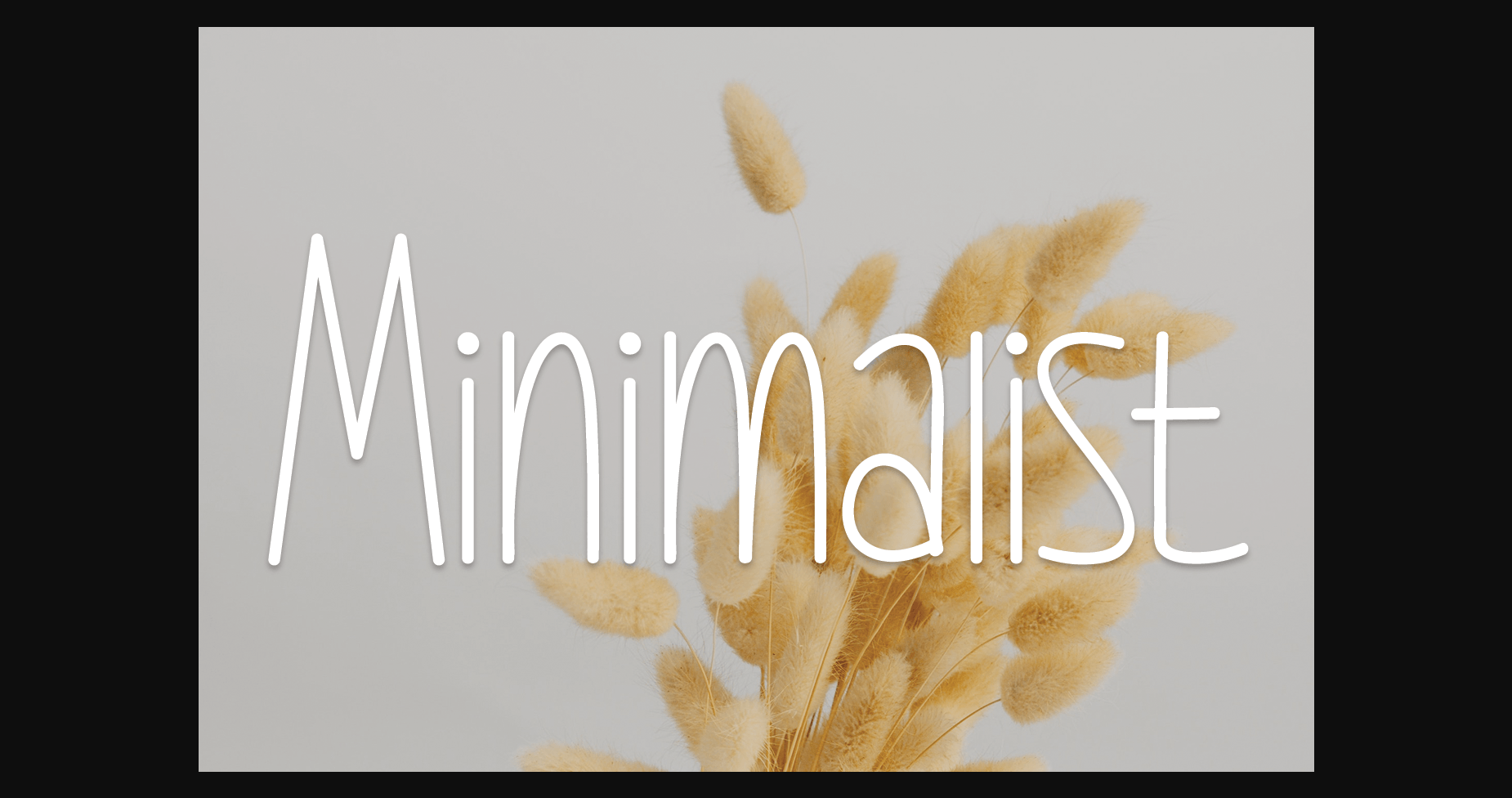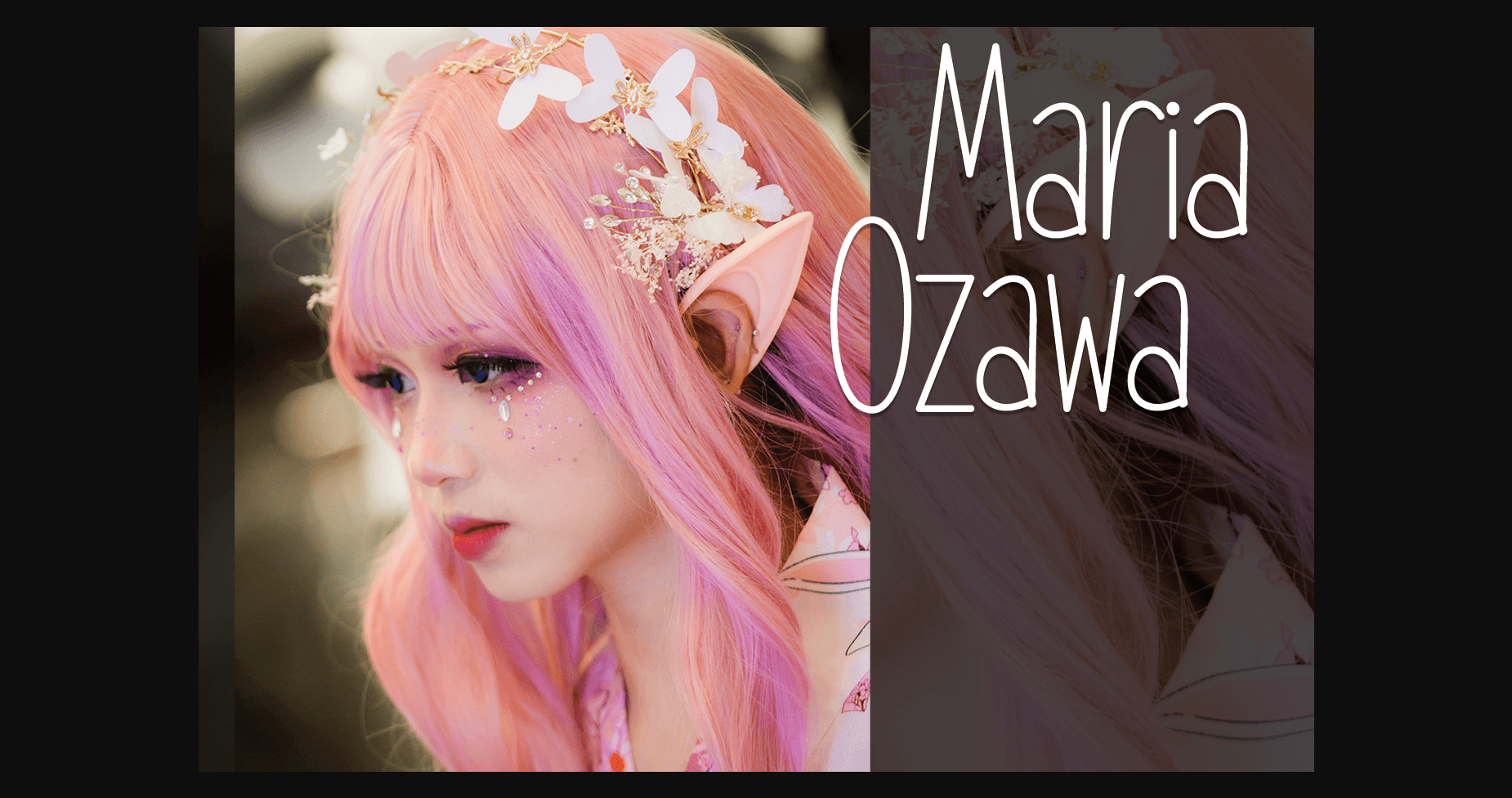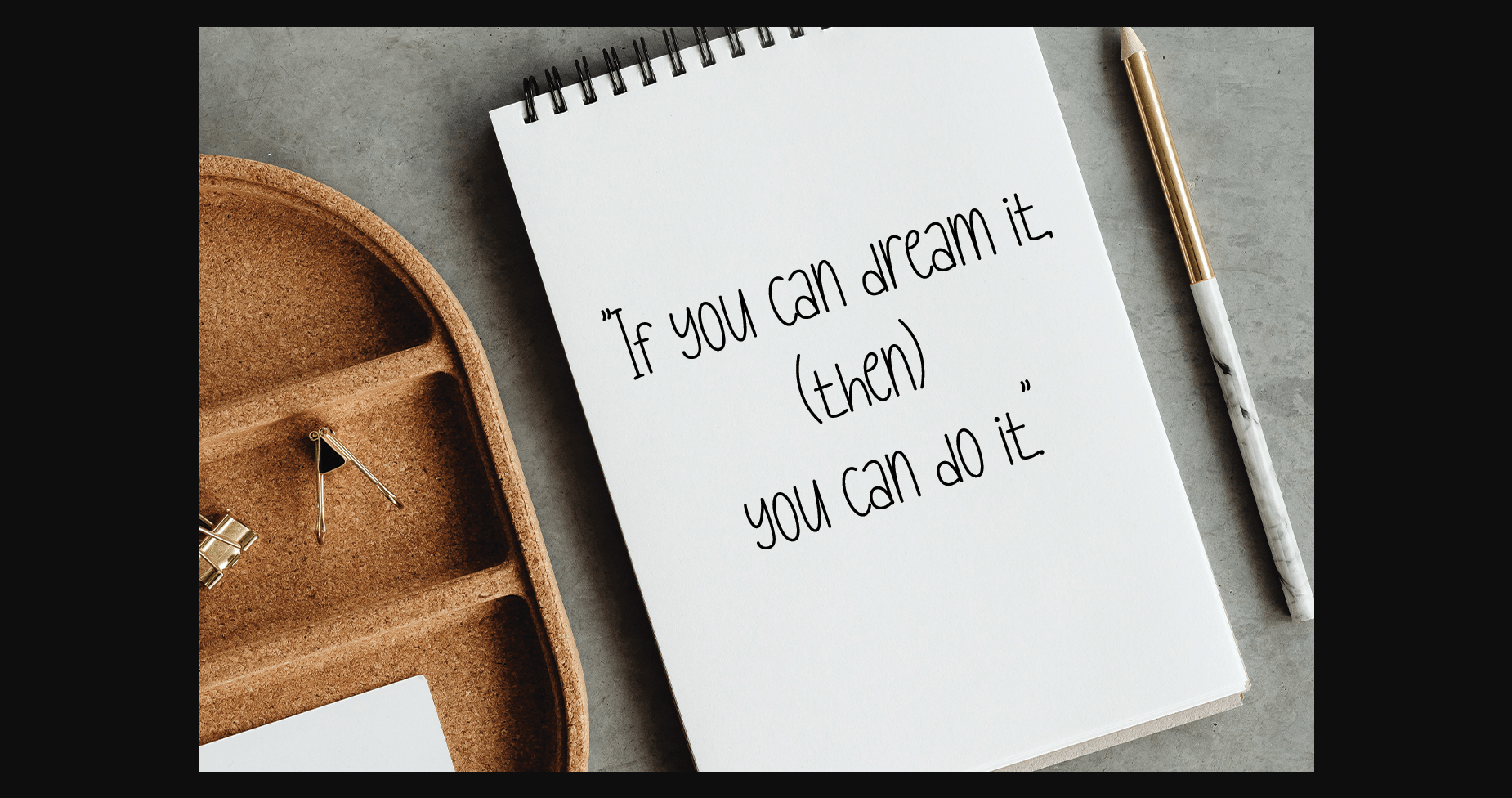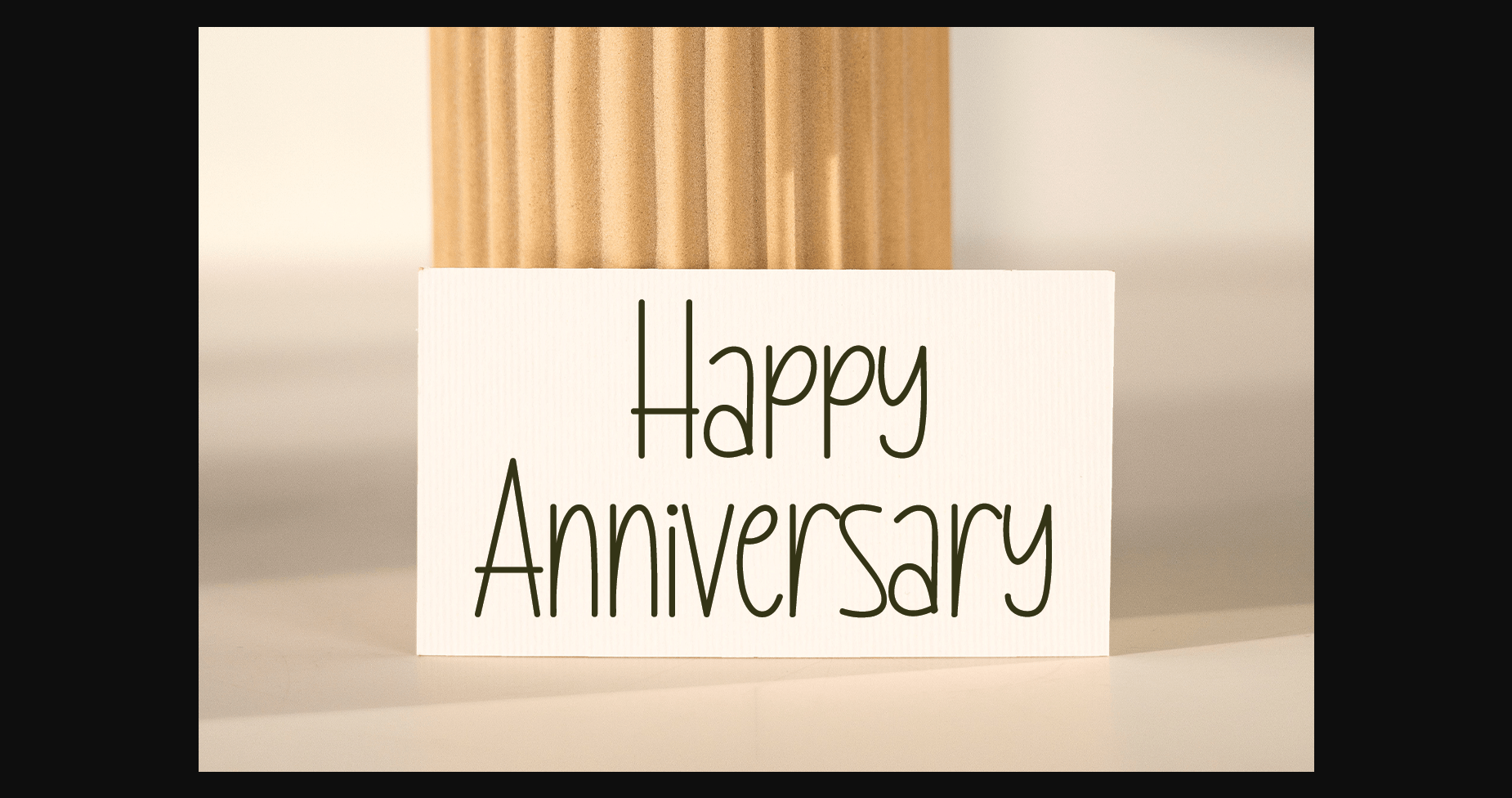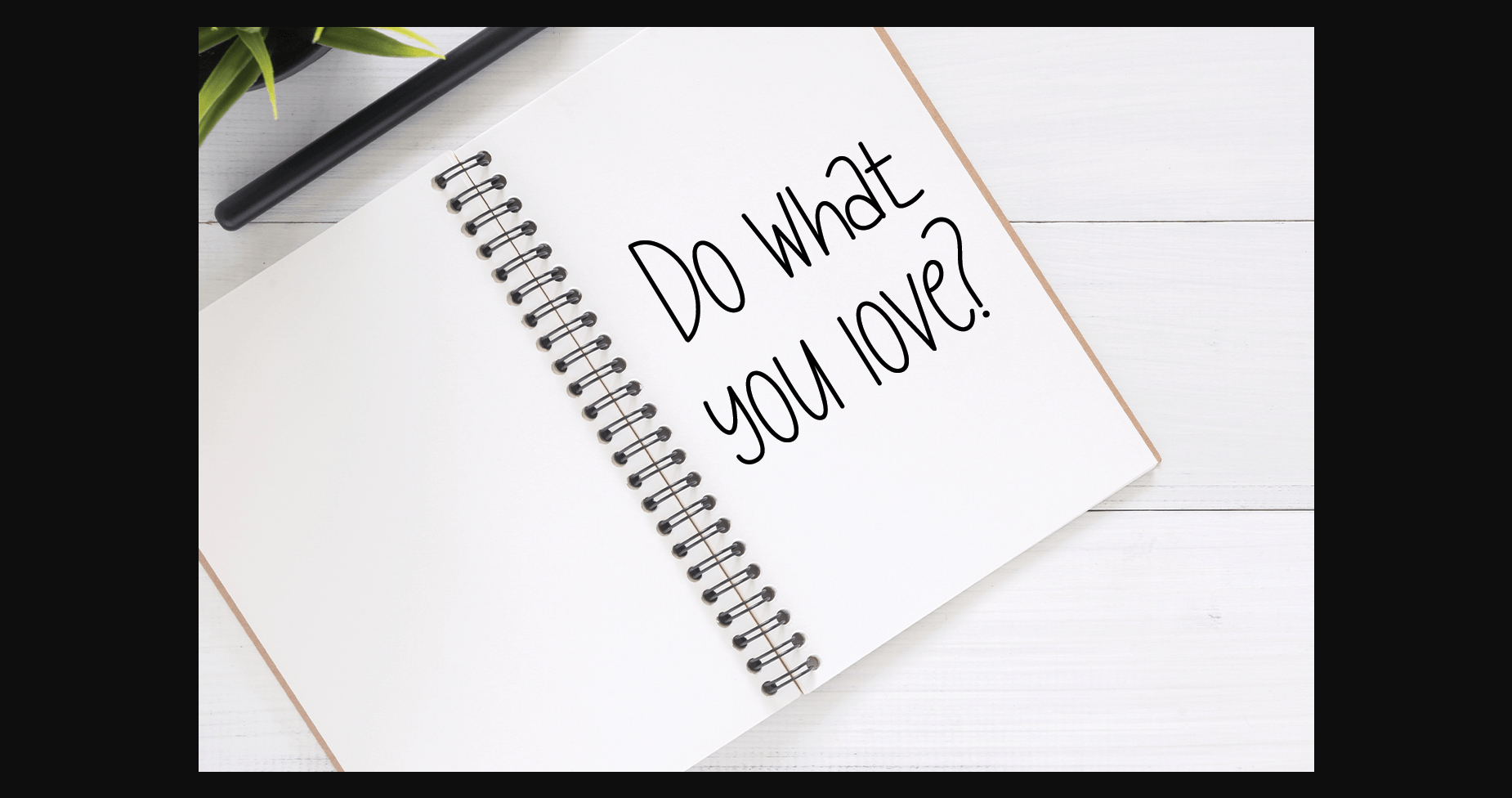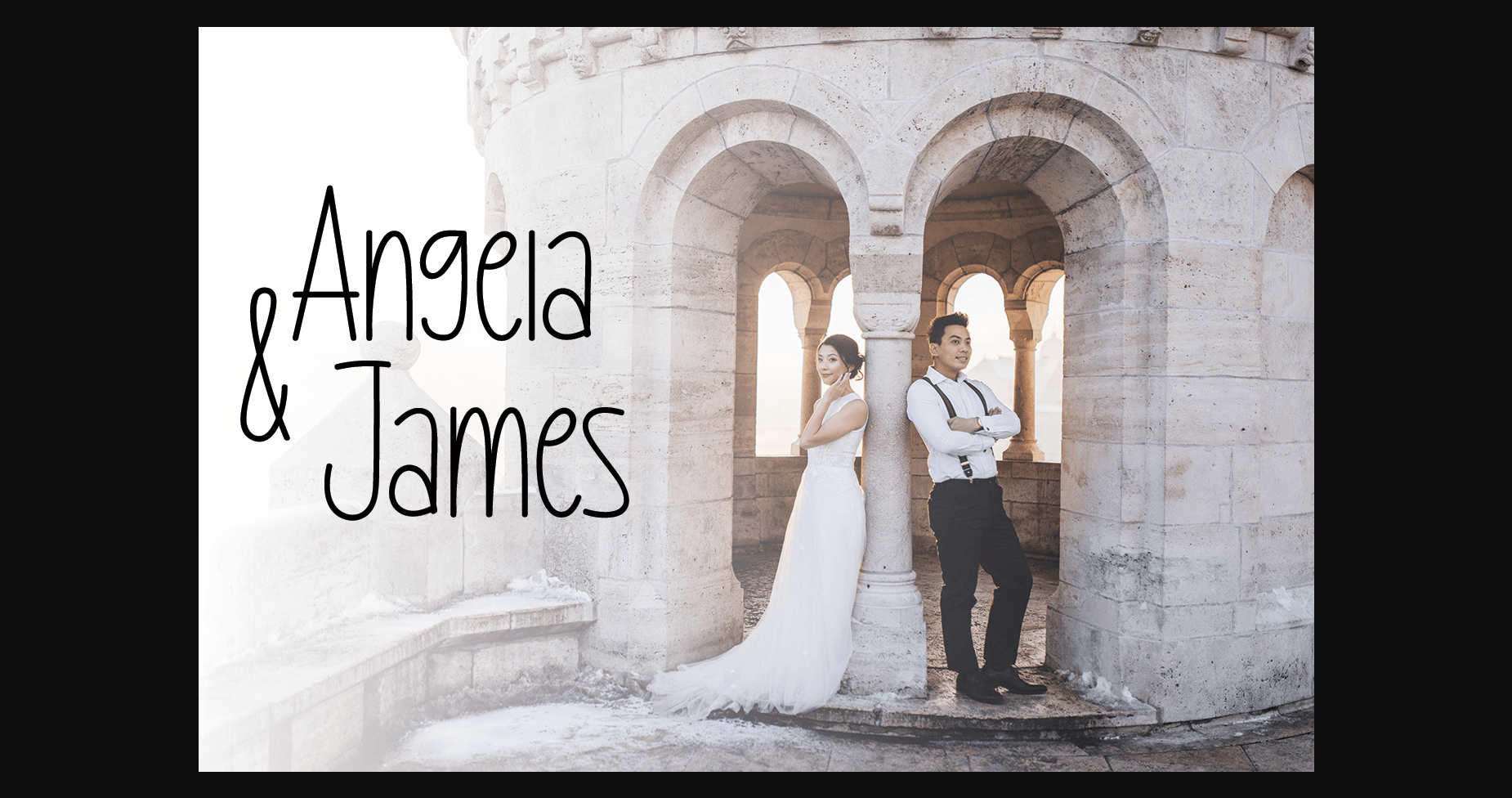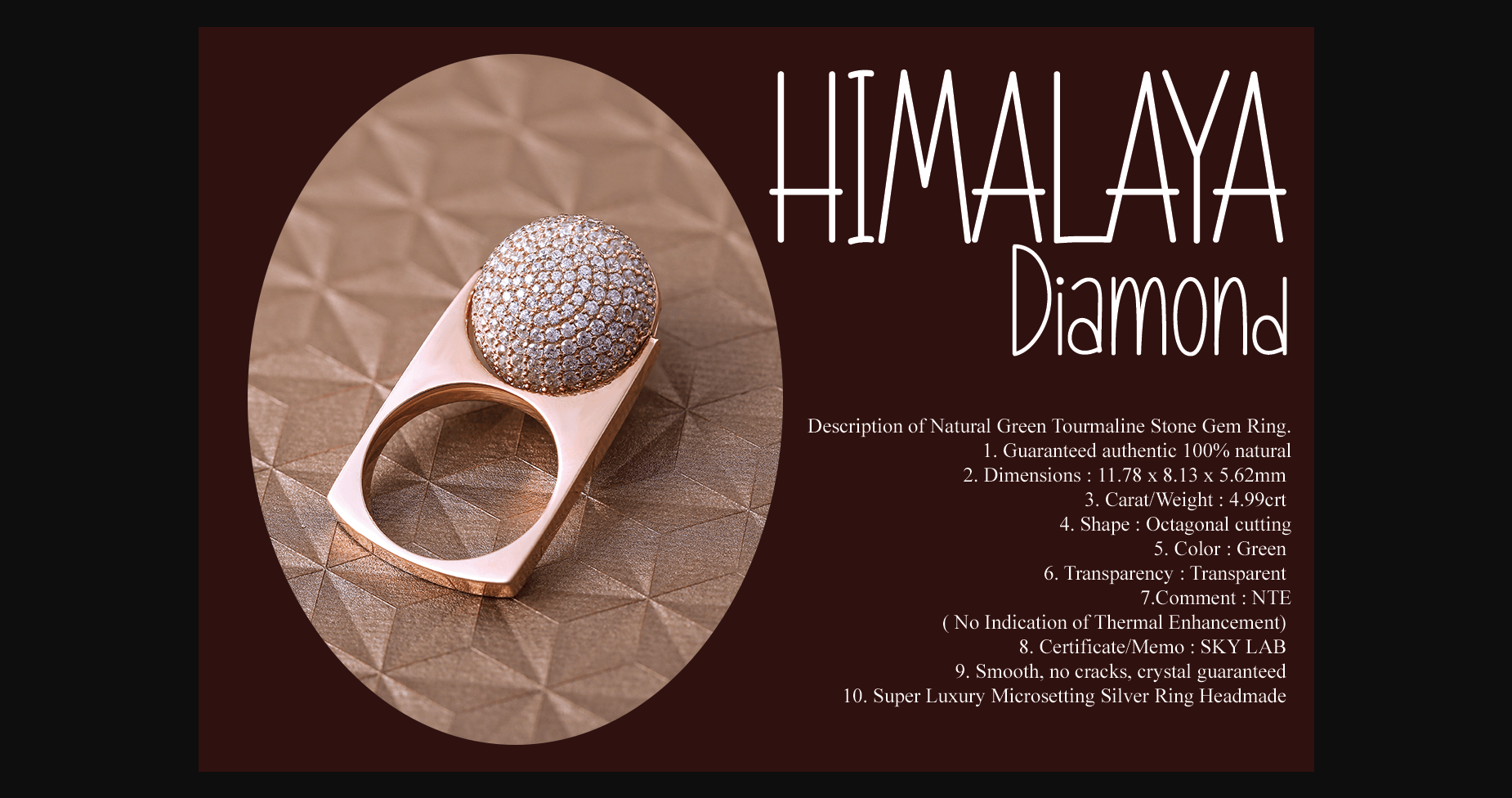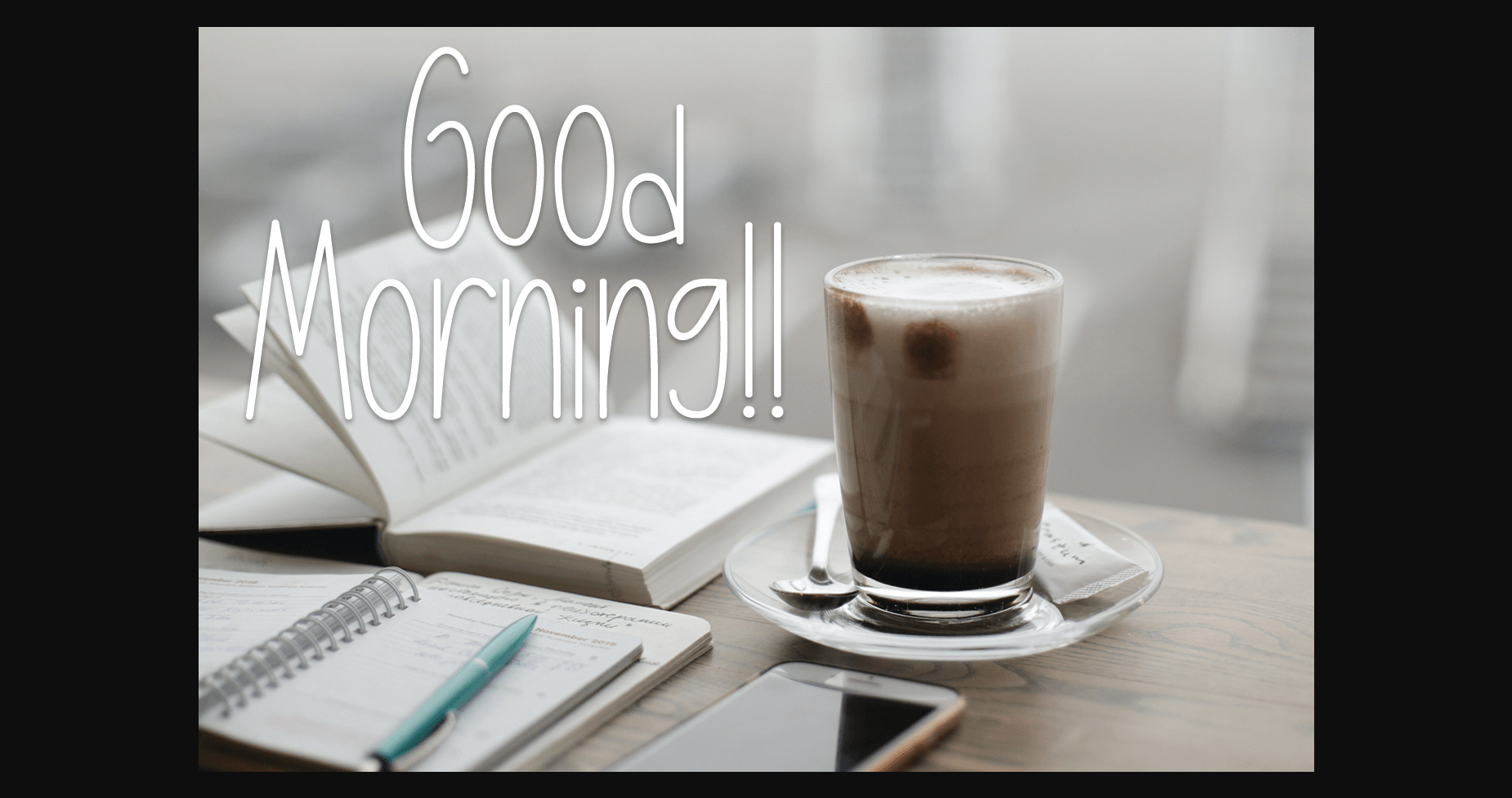
HomeSans Serif FontsMinimalist Font Sans Serif Fonts Minimalist Font FacebookXPinterestWhatsApp 1 of 10 ... Minimalist Font Poster 2... Minimalist Font Poster 3... Minimalist Font Poster 4... Minimalist Font Poster 5... Minimalist Font Poster 6... Minimalist Font Poster 7... Minimalist Font Poster 8... Minimalist Font Poster 9... Minimalist Font Poster 10... About Minimalist Font Minimalist is a minimal and neat sans serif font that can easily be matched to a large set of projects. So add it to your creative ideas, and notice how it makes them stand out! DOWNLOAD NOW People also explored Ocy Font Gapemax Brush Walnut Font Hazel Shadow Font Rhapsody Font Jakarta Font Realistic Mock-ups on Vintage Background Salahutu Font Halimunde Signature Font 292 0 TagsMinimalist Font Previous articleSavage Sports FontNext articleClusted Font LEAVE A REPLY Cancel reply Comment: Please enter your comment! Name:* Please enter your name here Email:* You have entered an incorrect email address! Please enter your email address here Website: Save my name, email, and website in this browser for the next time I comment. Personal Use Free Abingdon Personal Use Free Read more about this font Helsinki Personal Use Free Read more about this font Alinda Personal Use Free Read more about this font Cheese Matcha Font Personal Use Free Read more about this font BLOG Fonts That Capture the Spirit of New York City New York City is more than just a place—it’s an experience, a rhythm, a visual language... Modern Sans-Serif Fonts That Brands Love in 2025 Best Fonts for YouTube Videos: Make Your Thumbnails Stand Out To increase your work productivity, choose the most readable fonts.